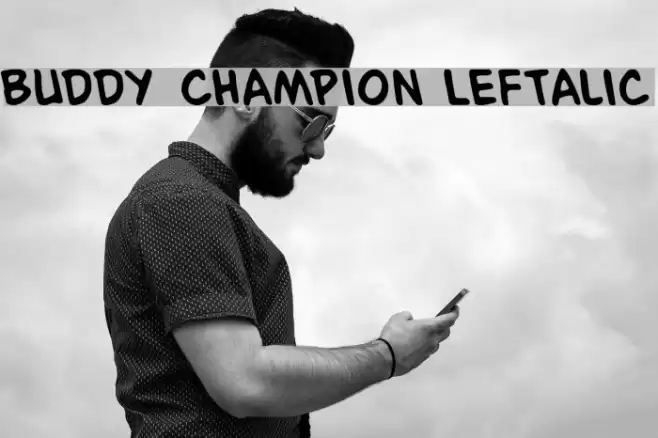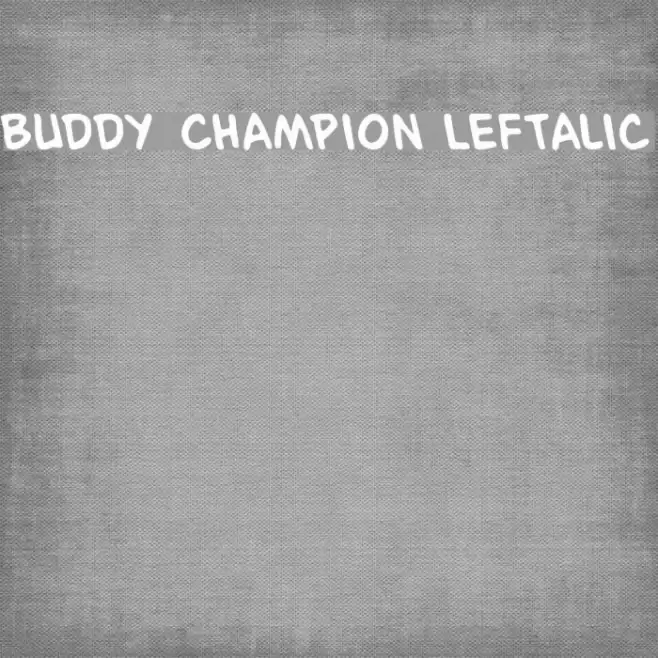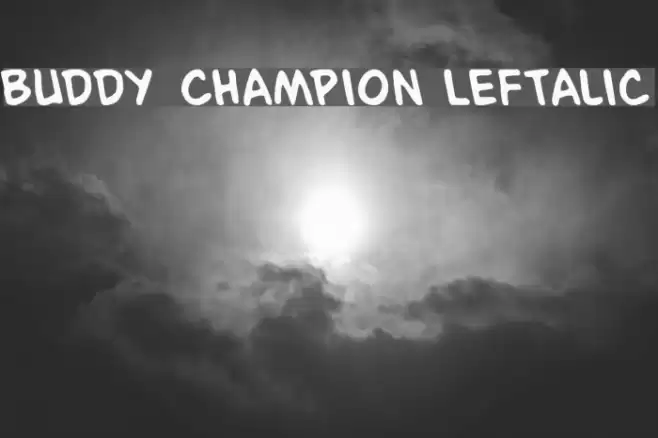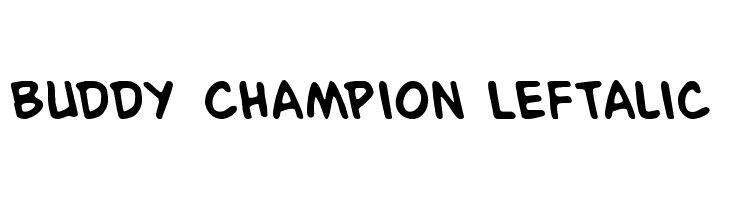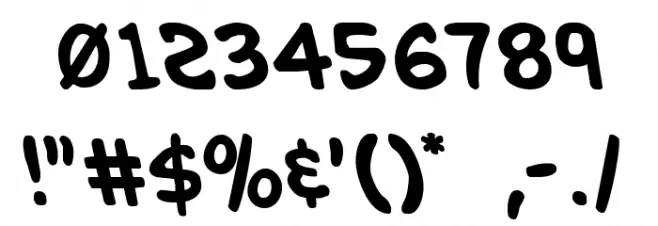
Buddy Champion Leftalic Font
Buddy Champion Leftalic Description
This playful and bold font features a handwritten style with rounded edges and a slightly irregular baseline, giving it a casual and friendly appearance. The letters are thick and consistent in weight, providing a strong visual impact. The uppercase and lowercase characters maintain a cohesive look, while the numerals and special characters complement the overall design. Its informal style makes it suitable for projects that require a touch of personality and approachability.
A bold, handwritten font with a playful and casual style from Comic fonts.
- Proposed Projects: Ideal for children's books, playful branding, casual invitations, and social media graphics.
- Overall Style: Casual
- Use Case: Headlines, Logos, Informal Text